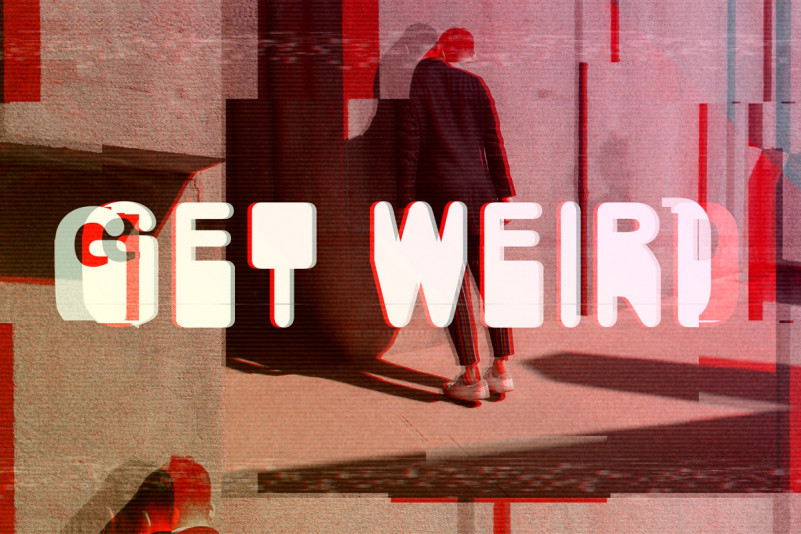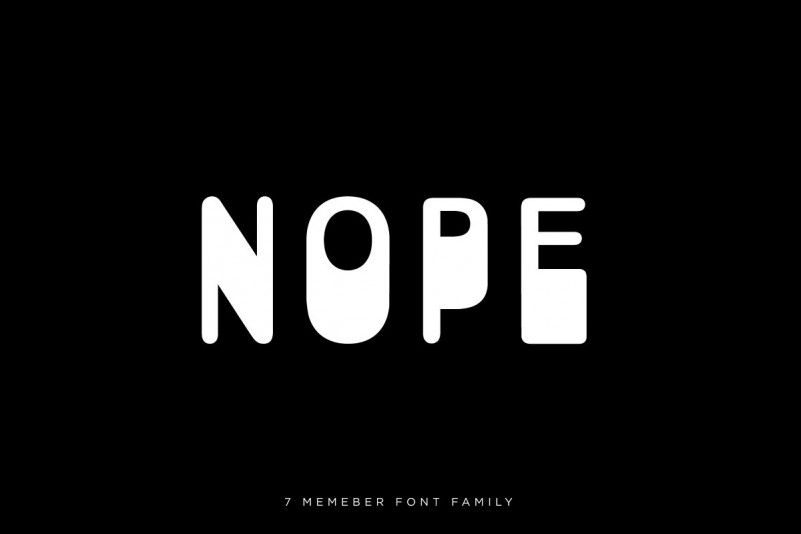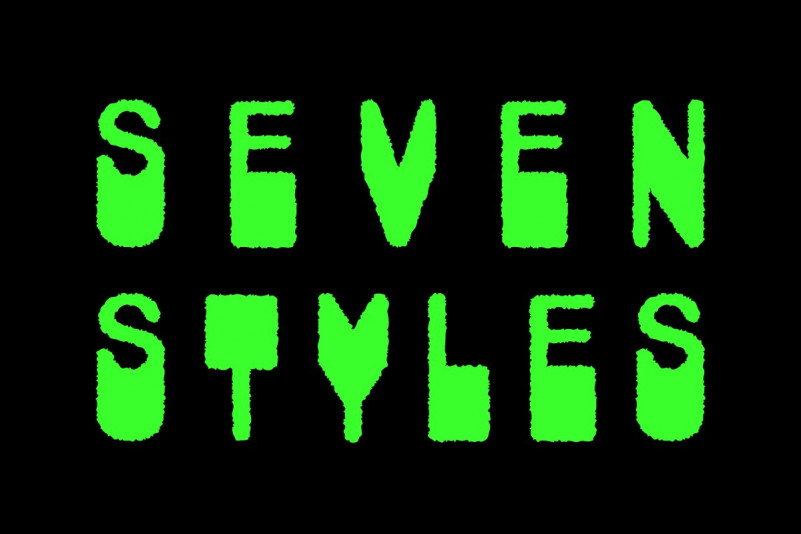
NOPE Font
NOPE is a family of seven unique sans-serif styles. Used separately or together, each font will add modernity + individuality to your designs.
Each style includes uppercase, numbers, and punctuation. NOPE is THE family for awesome poster design, logos, print, branding, and more.